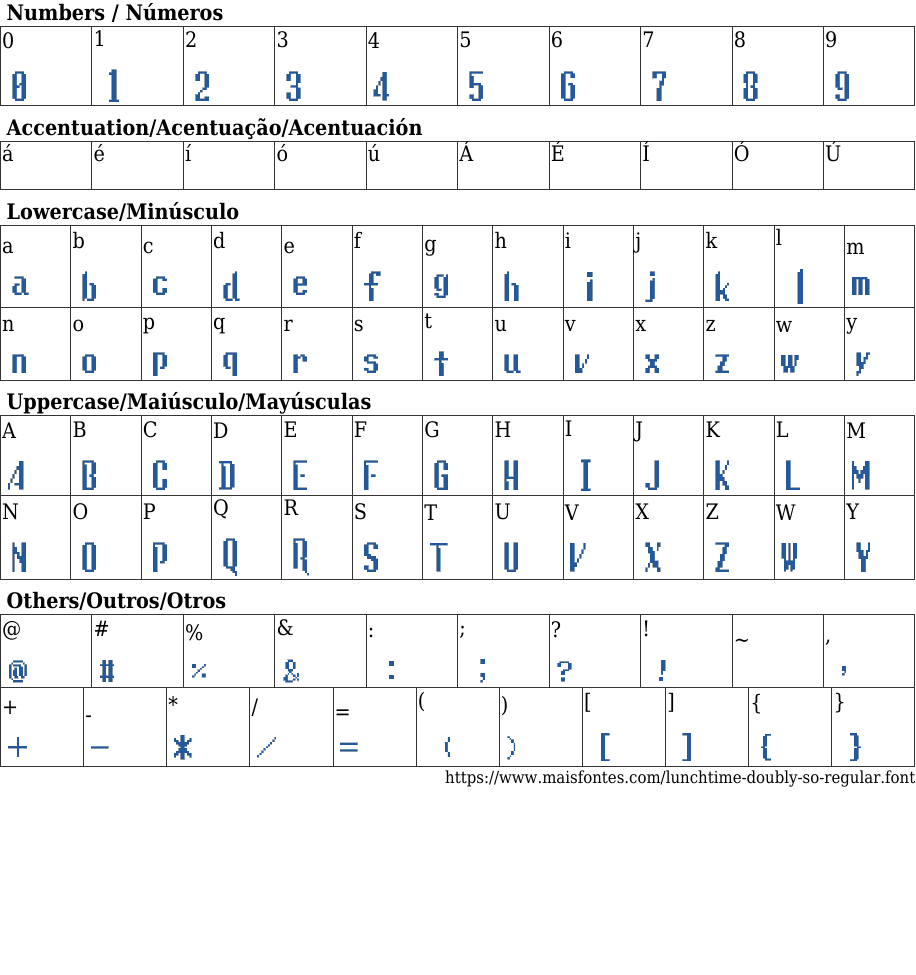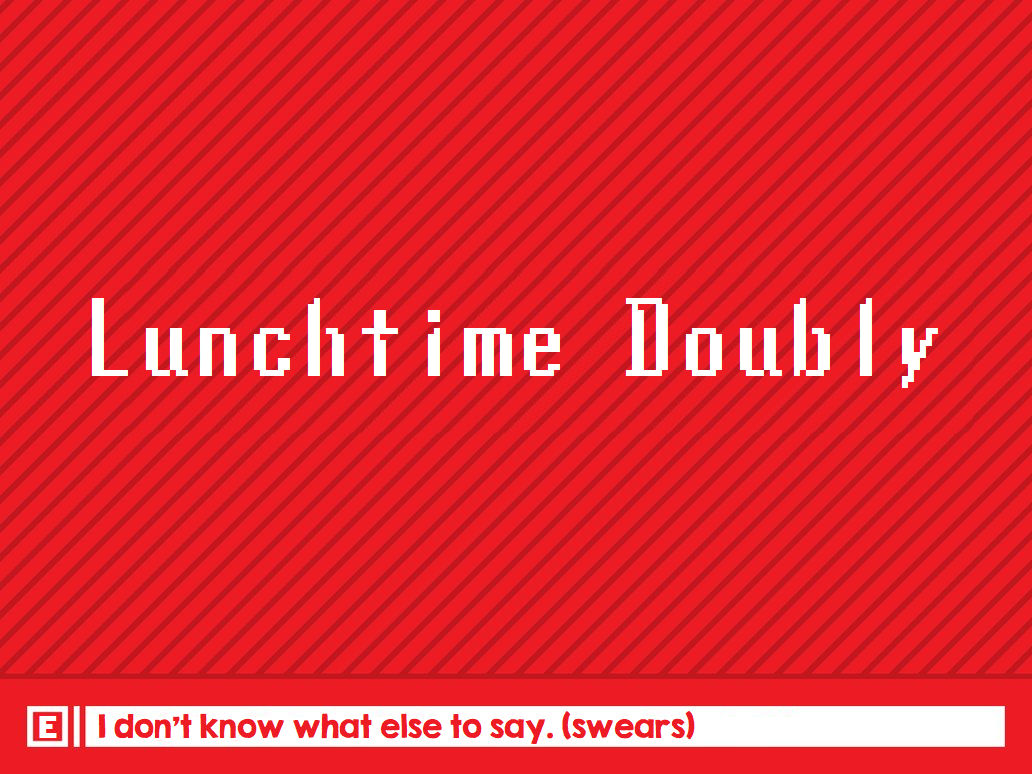
Lunchtime Doubly So Font . #pixel, #bitmap, #video game, #nintendo,. Since then, it has been downloaded 5,541.
Lunchtime doubly so is a retro type font that can be. Download free for desktop & webfont. In bitmap (16 px) [help] 13,003 downloads (4 yesterday) 100% free.
Web lunchtime doubly so by codeman38. Web lunchtime doubly so is a free font for commercial use created by codeman38. Uploaded by zemin 𑁋 (1 style) report a violation add to list. Since then, it has been downloaded 5,541.
Lunchtime Doubly So Font - #pixel, #bitmap, #video game, #nintendo,. Lunchtime doubly so font is free for both personel and commercial usages. Web lunchtime doubly so font is a nintendo font and was created on feb 3, 2004. Lunchtime doubly so is a retro type font that can be. Web lunchtime doubly so by codeman38.
Lunchtime Doubly So Font - Lunchtime doubly so font is free for both personel and commercial usages. In bitmap (16 px) [help] 13,003 downloads (4 yesterday) 100% free. Web lunchtime doubly so by codeman38. Download free for desktop & webfont. Since then, it has been downloaded 5,541.
Lunchtime Doubly So Font - Web lunchtime doubly so font is a nintendo font and was created on feb 3, 2004. Web download lunchtime doubly so font · free for commercial use · the font used for dialogue in a number of enix's super. Web lunchtime doubly so is a free font for commercial use created by codeman38. Lunchtime doubly so is a retro type.
Lunchtime Doubly So Font - Web download lunchtime doubly so font from free cdn or use it on your website as webfont. Web lunchtime doubly so by codeman38. Since then, it has been downloaded 5,541. Web lunchtime doubly so font is a nintendo font and was created on feb 3, 2004. Web download lunchtime doubly so font · free for commercial use · the font.
Lunchtime Doubly So Font - Web lunchtime doubly so font is a bitmap, pixel font designed by codeman38. Web lunchtime doubly so font is a nintendo font and was created on feb 3, 2004. Web download lunchtime doubly so font · free for commercial use · the font used for dialogue in a number of enix's super. Web lunchtime doubly so by codeman38. Download free.
Lunchtime Doubly So Font - #pixel, #bitmap, #video game, #nintendo,. Web download lunchtime doubly so font from free cdn or use it on your website as webfont. Lunchtime doubly so is a retro type font that can be. In bitmap (16 px) [help] 13,003 downloads (4 yesterday) 100% free. Web lunchtime doubly so font is a nintendo font and was created on feb 3, 2004.
Lunchtime Doubly So Font - Web download lunchtime doubly so font · free for commercial use · the font used for dialogue in a number of enix's super. Web lunchtime doubly so font is a bitmap, pixel font designed by codeman38. Web download lunchtime doubly so font from free cdn or use it on your website as webfont. Web lunchtime doubly so font is a.
Lunchtime Doubly So Font - Web lunchtime doubly so by codeman38. Download free for desktop & webfont. Web lunchtime doubly so font is a bitmap, pixel font designed by codeman38. In bitmap (16 px) [help] 13,003 downloads (4 yesterday) 100% free. Uploaded by zemin 𑁋 (1 style) report a violation add to list.
Lunchtime Doubly So Font - Uploaded by zemin 𑁋 (1 style) report a violation add to list. Web download lunchtime doubly so font · free for commercial use · the font used for dialogue in a number of enix's super. Web download lunchtime doubly so font from free cdn or use it on your website as webfont. Since then, it has been downloaded 5,541. Web.
Lunchtime Doubly So Font - Web lunchtime doubly so by codeman38. In bitmap (16 px) [help] 13,003 downloads (4 yesterday) 100% free. Web lunchtime doubly so is a free font for commercial use created by codeman38. Lunchtime doubly so is a retro type font that can be. #pixel, #bitmap, #video game, #nintendo,.
Lunchtime Doubly So Font - Lunchtime doubly so font is free for both personel and commercial usages. Web download lunchtime doubly so font · free for commercial use · the font used for dialogue in a number of enix's super. Lunchtime doubly so is a retro type font that can be. Download free for desktop & webfont. #pixel, #bitmap, #video game, #nintendo,.
Lunchtime Doubly So Font - Since then, it has been downloaded 5,541. Lunchtime doubly so is a retro type font that can be. Web lunchtime doubly so by codeman38. In bitmap (16 px) [help] 13,003 downloads (4 yesterday) 100% free. Download free for desktop & webfont.
Lunchtime Doubly So Font - Since then, it has been downloaded 5,541. Web lunchtime doubly so by codeman38. Web lunchtime doubly so font is a nintendo font and was created on feb 3, 2004. In bitmap (16 px) [help] 13,003 downloads (4 yesterday) 100% free. Lunchtime doubly so font is free for both personel and commercial usages.
Lunchtime Doubly So Font - Since then, it has been downloaded 5,541. Download free for desktop & webfont. Web download lunchtime doubly so font · free for commercial use · the font used for dialogue in a number of enix's super. Web lunchtime doubly so font is a bitmap, pixel font designed by codeman38. Web lunchtime doubly so font is a nintendo font and was.